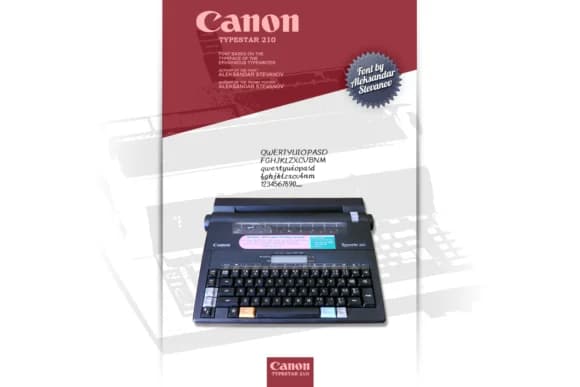
About Canon TypeStar 210 Font
Canon TypeStar 210 by astevanov is a retro handwritten script that perfectly captures the casual elegance of vintage typography and classic period lettering. This distinctive font brings nostalgic character to modern design work, making it particularly valuable for creating vintage-inspired product packaging labels that evoke established brand aesthetics, designing period-authentic greeting card collections with genuine handwritten warmth, and developing throwback poster designs that emphasize bold hand-lettered appeal. The script's warm, organic letterforms also work exceptionally well for vintage album cover designs and nostalgic brand identity projects that deliberately seek to evoke a specific historical era or aesthetic movement.
Beyond its strong visual appeal, Canon TypeStar 210's approachable and friendly letterforms adapt beautifully to both digital and print applications. Designers working on distinctly retro-themed projects will immediately appreciate how naturally this font pairs with vintage design elements, complementary color palettes, and period-appropriate visual languages. Whether you're creating seventies-inspired marketing materials and collateral, designing custom stationery and correspondence with vintage character, or developing comprehensive branding strategies that deliberately channel retro aesthetics, this handwritten script offers exactly the authentic touch that distinguishes genuinely period-perfect design work.
Canon TypeStar 210 Font is a script font that shines as a display or heading face. Pair it with a clean sans-serif or serif font for body text β the contrast creates a clear hierarchy while the two styles stay balanced and easy to read.
Canon TypeStar 210 Font